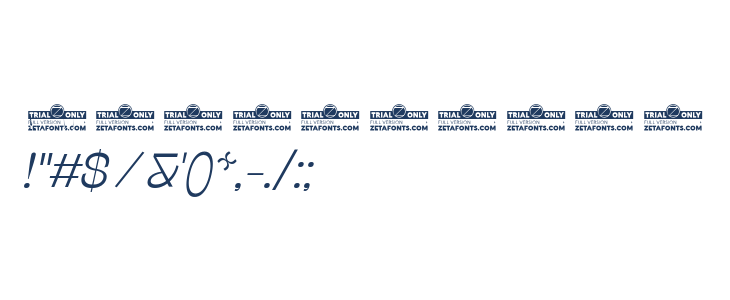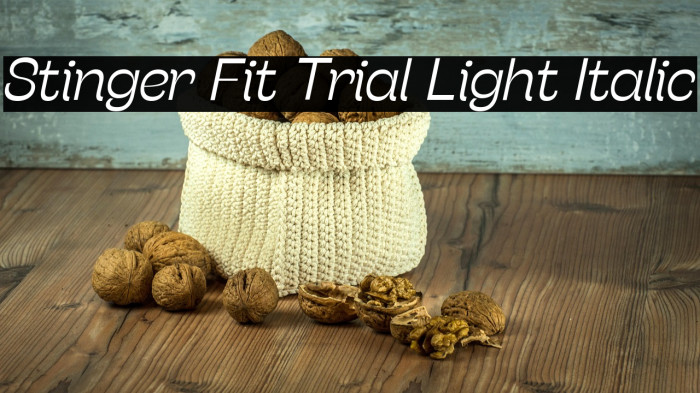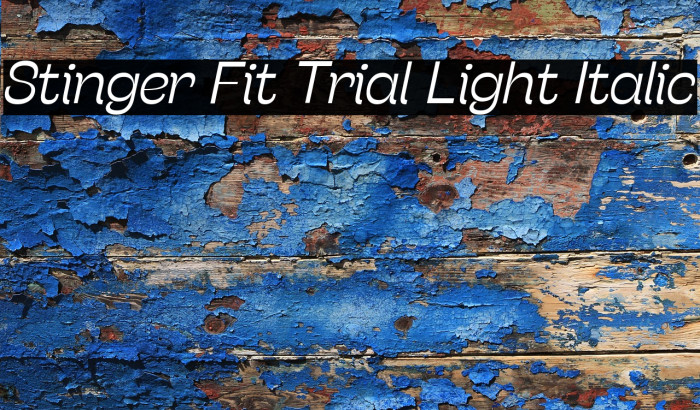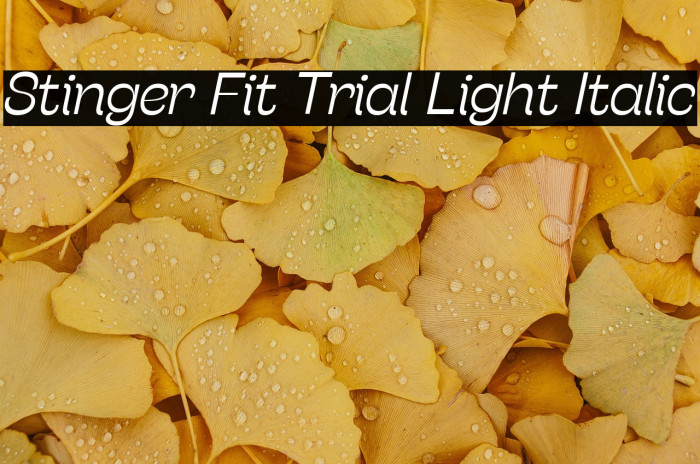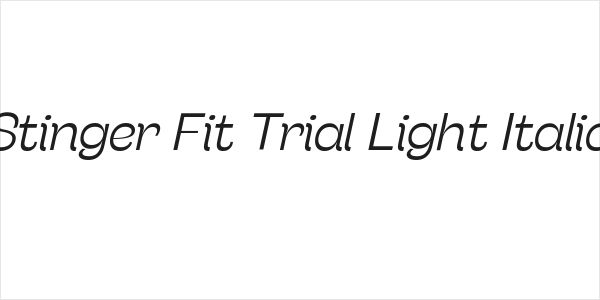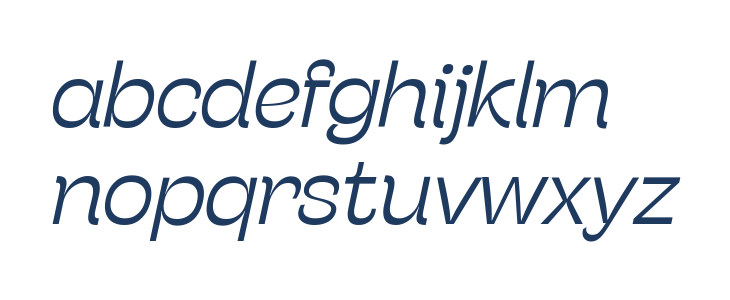
Stinger Fit Trial Light Italic Font
Stinger Fit Trial Light Italic Description
This font features a sleek, modern design with a light weight and italic style. The characters are slightly condensed, giving it a streamlined appearance. The strokes are consistent and smooth, with medium contrast that enhances readability while maintaining an elegant look. The font's clean lines and subtle curves make it suitable for a variety of design applications, offering a contemporary yet timeless feel.
| Proposed Projects | Ideal for branding, editorial design, and digital interfaces where a modern and elegant touch is desired. |